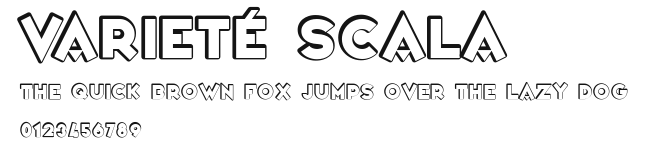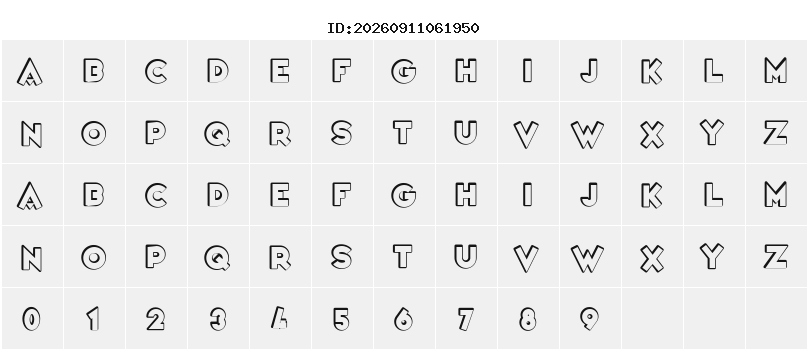
• Font Name: Varieté Scala
• Font ID: PeterWiegel: Varieté Scala: 2009
• Full Font Name: Varieté Scala
• Designer: Peter Wiegel
• Manufacturer: Peter Wiegel
About Varieté Scala.ttf
Varieté Scala.ttf is a modern, elegant sans-serif font designed for ultimate readability and visual harmony. Perfect for branding, headlines, web design, and print materials.